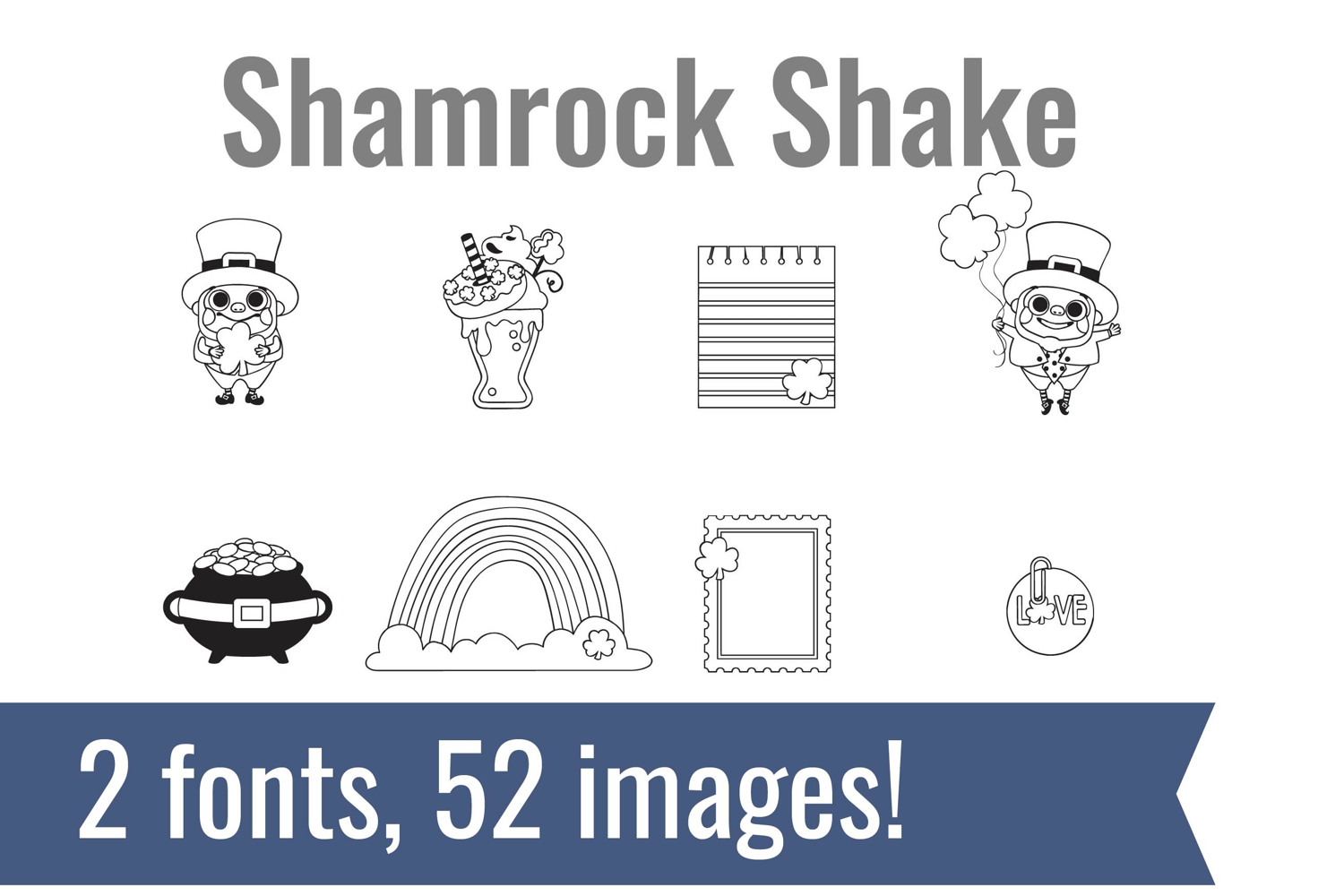
Shamrock Shake Dingbats
Unlock endless creativity with two perfectly coordinated dingbat fonts! There are two dingbat fonts in this bundle, featuring shamrocks and leprechauns.
Tired of spending hours searching for the perfect icons and graphics? Our dingbat fonts put dozens of cohesive, scalable designs at your fingertips. Simply install the font and type a letter to produce a pre-made image. From charming seasonal icons for holiday cards to intricate frames for your invitations, these fonts let you create stunning designs for vinyl cutting, paper crafts, planners, and more.